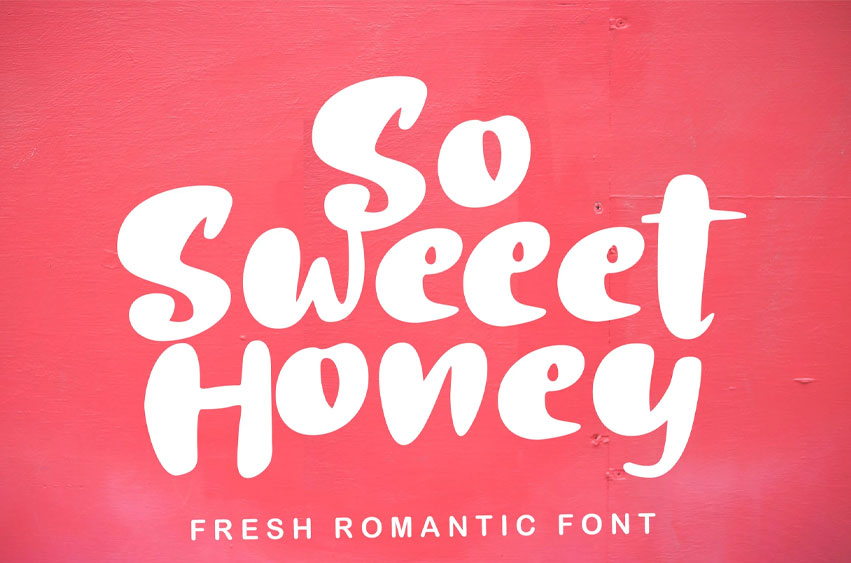
So Sweet Honey Fon is Fresh Romantic Font for logo, poster, clothing, branding, party invitation, and many many other cool design projects.
It will certainly amaze your readers.
So Sweet Honey Font Preview